Primarium website released!
After almost two years of hard work, we are proud to share the brand new Primarium website, TypeTogether’s pioneering, global handwriting project.
Primarium began as an in-depth, global research project that asked, “How is Latin-based handwriting being taught in early childhood education?” We then built a research team to understand this multifaceted subject from various regional perspectives.
We began in 2022 with a handful of members from our core TypeTogether team: Veronika Burian, José Scaglione, Cecilia Brarda, Pooja Saxena, and others as availability permitted. We were joined by Sandro Fetter, a professor at Universidade Federal do Rio Grande do Sul (UFRGS), Brazil, who focused on handwriting education for his doctoral thesis, and later by Caroline Schäfer, a graduate student and teaching assistant also at UFRGS. Over 60 collaborators provided region-specific experiences and insights, ranging from teachers and school administrators to handwriting experts, typeface designers, and calligraphers.
You can explore Primarium by country or by handwriting model, which are exemplars that represent distinct letter styles and teaching approaches distilled from painstaking research and analysis. The website features newly-written essays on each presented country, and they are supplemented with visual samples from textbooks, syllabi, and an exhaustive list of the sources we consulted to create a comprehensive asset for future researchers. The section on handwriting models also enjoys the same attention, with each model made into an illustration to highlight its key visual features.
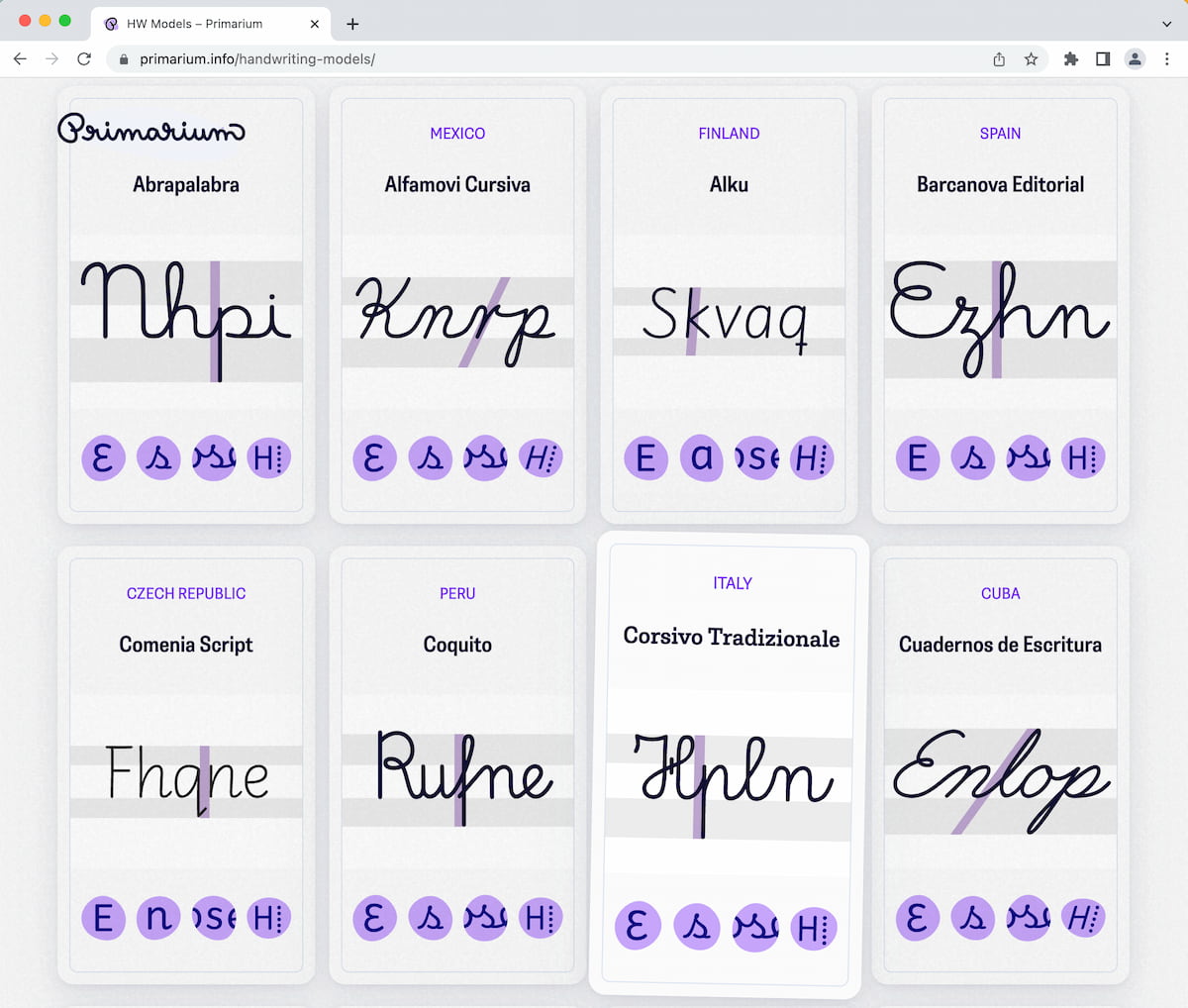
Handwriting models.
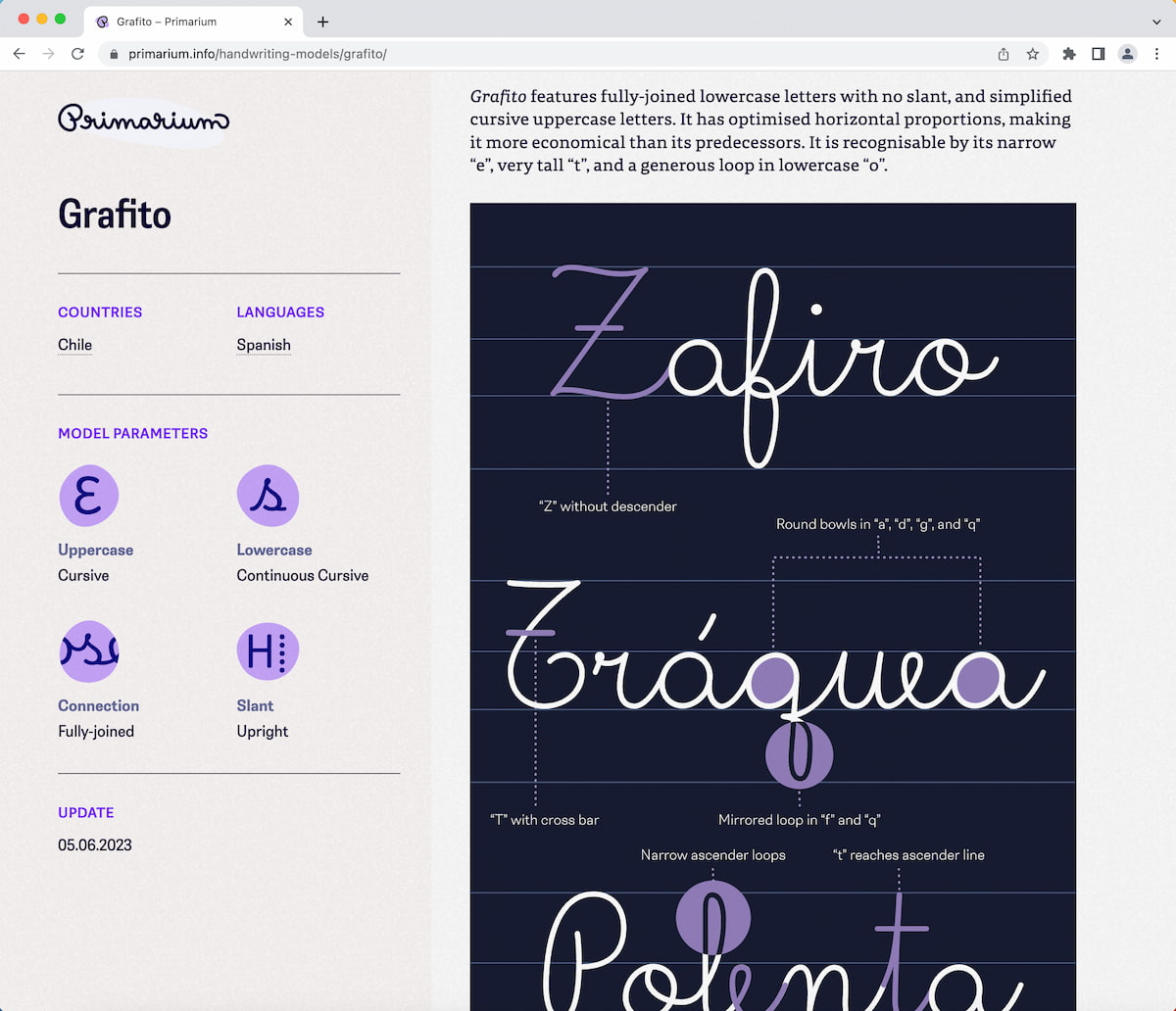
Example of handwriting model page (Grafito, Chile).
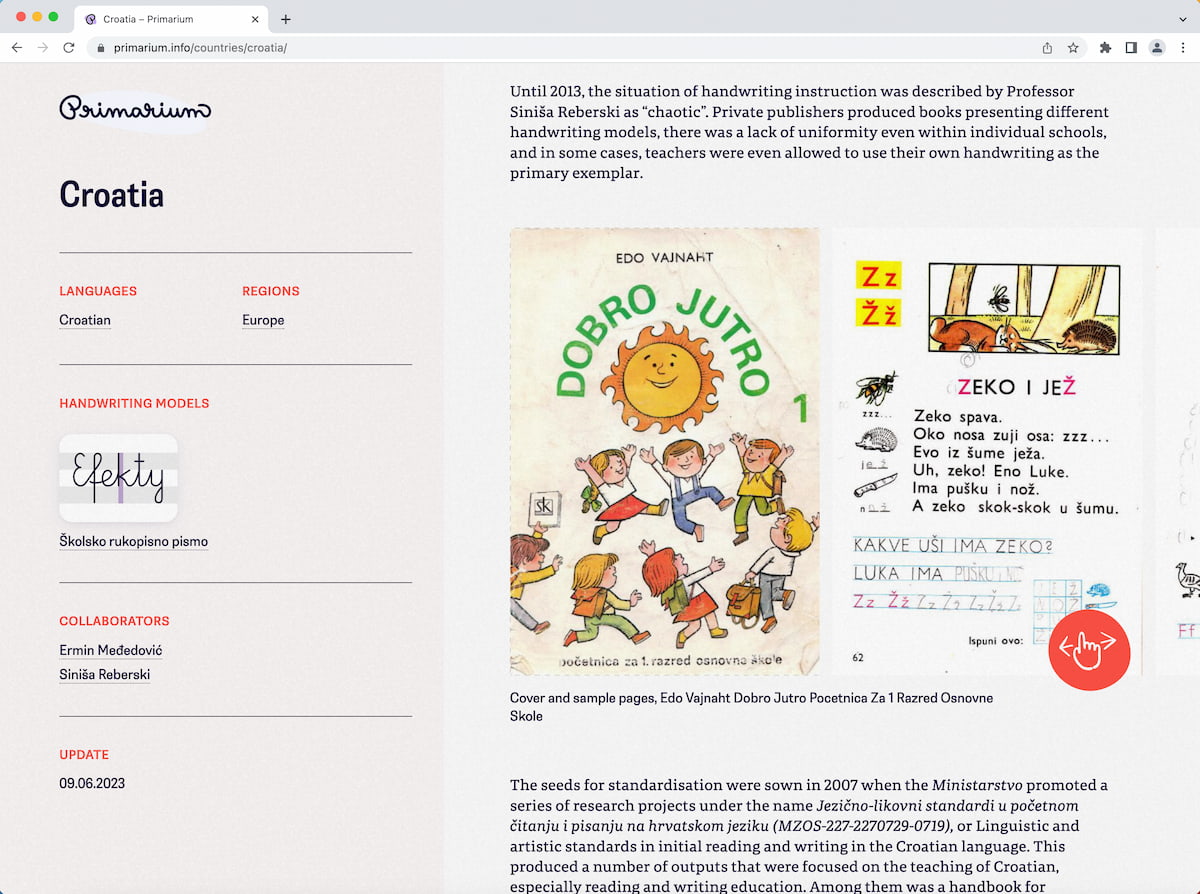
Example of country page (Croatia, Europe).
Not only were we conducting detailed research on this subject, but we were also simultaneously creating new typefaces based on our findings. So the entire process has been a rolling research-and-production marathon. The more we learned about regional handwriting differences, the more we had to work to incorporate those characteristics into our upcoming font families. More knowledge and examples led to more iterations, and those iterations led to more questions and research, and then repeat.
So in addition to being an invaluable educational resource, Primarium is also the foundation for two upcoming typeface families (Playpen and Playpen Sans). But is that all? No, of course not. There’s more candy surprises hiding in this educational piñata. Stay tuned for more details about them later this year!
Different levels of connections and loops in the Playpen family.
Playpen Sans eight weights, with seven alternates per character.